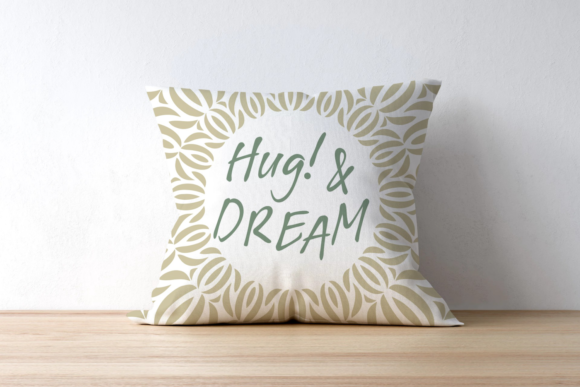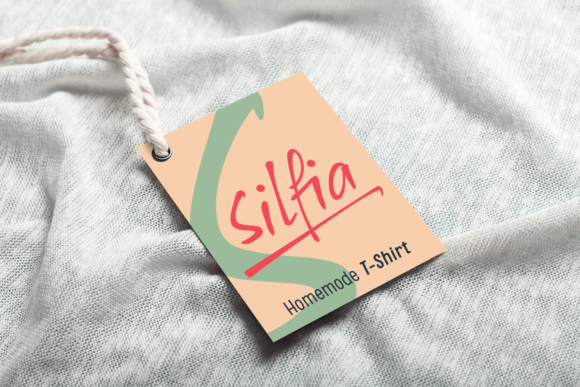
HomeScript FontsXyling Font Script Fonts Xyling Font FacebookXPinterestWhatsApp Xyling Font Poster 2 Xyling Font Poster 3 About Xyling Font The Xyling is an striking hand-drawn brush font. Perfect for making your designs stand out! DOWNLOAD ON CREATIVE FABRICAThis font is sold and delivered by Creative Fabrica. Font Canyon may earn a commission if you buy through this link. People also explored Girls Hearty Font Christmas Day Font Craft Love Font Basketball Font Levision Font Ethalogia Font Broken Heart Font Moment Farmhouse Font Trapeze 280 0 TagsXyling Font Previous articlePrester John FontNext articleSleeper Font LEAVE A REPLY Cancel reply Comment: Please enter your comment! Name:* Please enter your name here Email:* You have entered an incorrect email address! Please enter your email address here Website: Save my name, email, and website in this browser for the next time I comment. Personal Use Free Ashay Personal Use Free Read more about this font Makeba Font Personal Use Free Read more about this font Susanna Personal Use Free Read more about this font 1313 Mockingbird Lane Personal Use Free Read more about this font BLOG Transform Your Website: Elevate Your Typography with 7 Best Web Font Generators Are you ready to transform your website's typography from ordinary to extraordinary? Great! Today, we're diving into the world of web font generators, which... How to Install and Use Fonts on Windows, macOS, and Web Projects Best Fonts for T-Shirt Design – Top 2025 Picks Free Fonts Risk: Why Free Fonts Can Be Dangerous for Designers